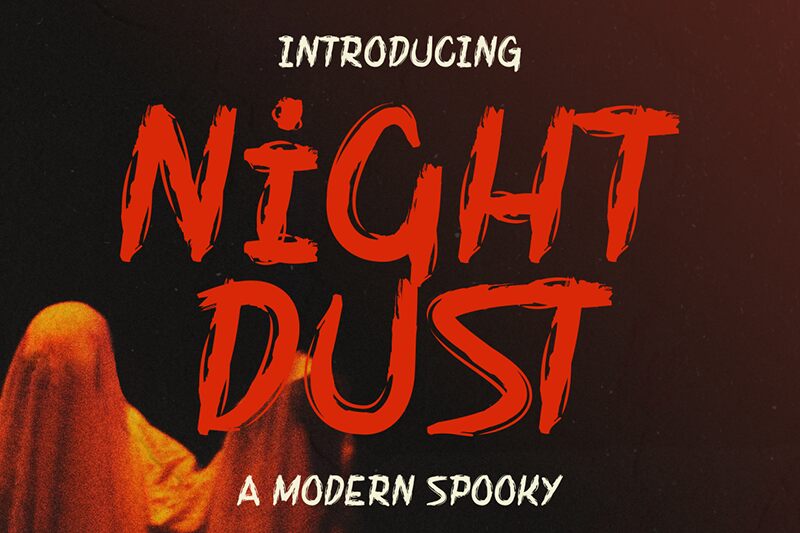
Night Dust
Night Dust font by Gilang Ternadho is a free Halloween brush display font. Its strokes look slashed and wet, with bristly edges that feather into inky smears—like titles scrawled in a rush before the lights go out. The rhythm is jagged and a little off-kilter, which gives headlines that twitchy, cinematic tension without losing legibility at size.
Using Night Dust, you’ll get instant mood for event posters, haunted house flyers, horror movie titles, game splash screens, YouTube thumbnails, and merch tags. This free font thrives large, where its gritty texture can breathe; pair it with a clean geometric sans for captions to keep the scare sharp and the message clear.